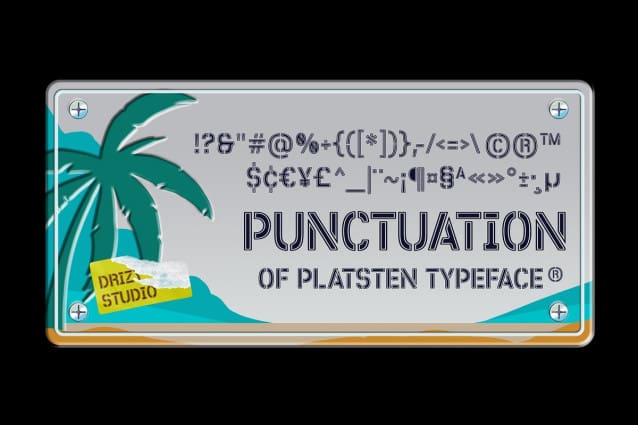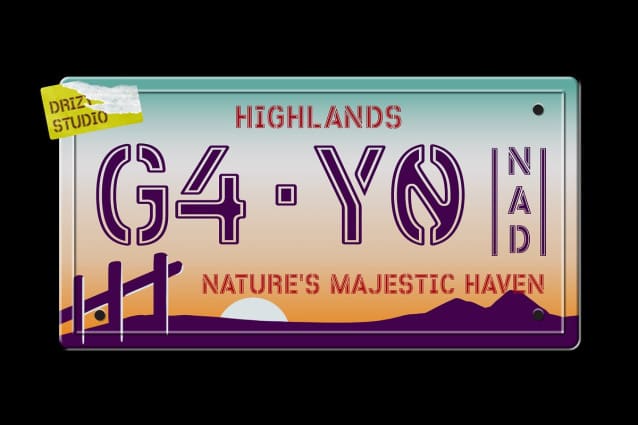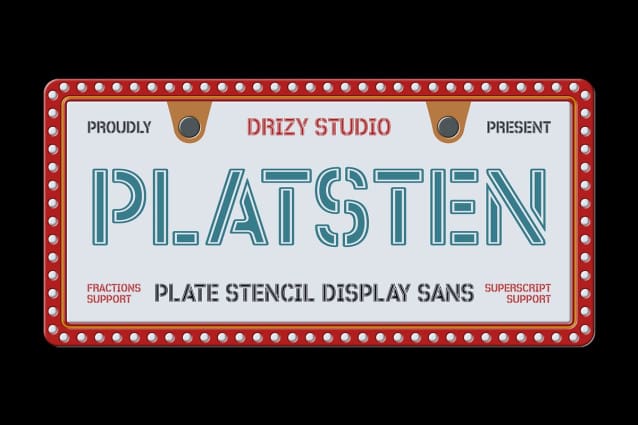
Platsten Stencil Font
Platsten Stencil Font, a uniquely designed License Plate display font that brings the essence of industrial chic right to your fingertips. Crafted meticulously for designers, artists, and creatives who dare to stand out, Platsten embodies boldness and originality in every character. This font is not just a typeface; it’s a statement—a blend of vintage craftsmanship and contemporary design ethos.